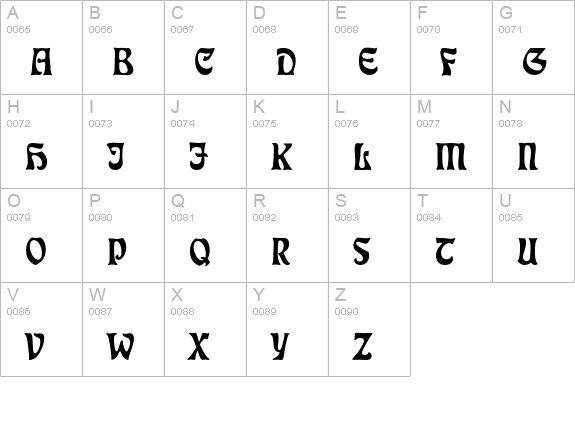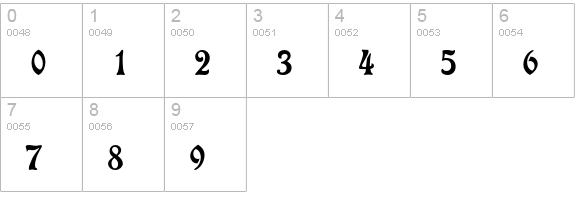
EckmannEF Font Details
EckmannEF font is a stunning and versatile typeface that effortlessly combines elegance with a touch of modernity. Crafted with precision and attention to detail, this font is a true testament to the art of typography. With its clean lines and graceful curves, EckmannEF font exudes sophistication and professionalism, making it perfect for a wide range of design projects. Whether you're working on a logo, branding materials, or a website, this font will elevate your designs to a whole new level. What sets EckmannEF font apart is not only its impeccable design, but also the fact that it is freely available to download at FontsMarket.com. Yes, you read that right – this exceptional font can be yours at no cost! As a designer, having access to high-quality fonts that don't break the bank is invaluable, and EckmannEF font checks all the boxes. Downloading EckmannEF font is quick and easy. Simply head over to FontsMarket.com, locate the font, and with a few simple clicks, it will be ready to enhance your creative projects. Whether you're a professional designer or a hobbyist, this font is a must-have in your toolkit. So why wait? Elevate your designs with EckmannEF font today. Its timeless elegance and versatility will surely make your creations stand out from the crowd. Download this font for free at FontsMarket.com and unlock a world of design possibilities.